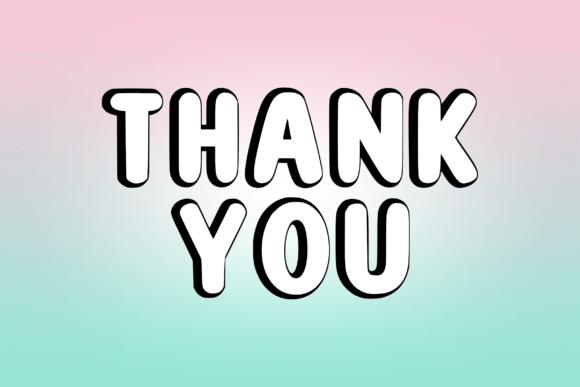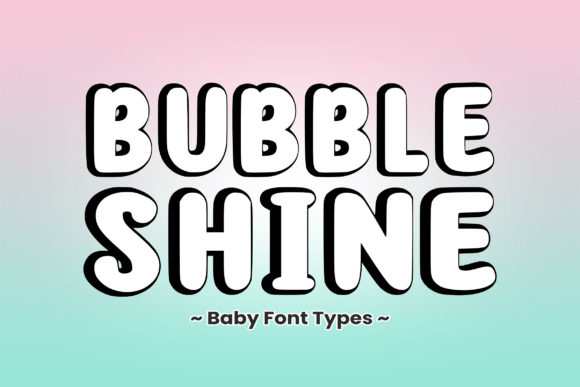
Unveiling Bubble Shine Font: The Sweetest Addition to Your Design Arsenal
In the world of typography, fonts play a crucial role in conveying the tone and personality of a design. For designers and crafters looking to add a touch of whimsy and charm to their creations, the Bubble Shine Font is an excellent choice. This contemporary bubble font is designed to make a statement with its sweet and effortlessly identifiable aesthetic, making it perfect for a wide range of applications.
The Charm of Bubble Shine Font
Bubble Shine Font is a delightful and charming typeface that exudes sweetness in every character. Its unique design makes it stand out from other fonts, rendering it effortlessly identifiable and versatile. Whether you’re working on sublimation designs for t-shirts, mugs, tote bags, or any other item, this font is sure to add a touch of magic to your creations.
Perfect for Sublimation Designs
Sublimation designs have become increasingly popular, and for good reason. They offer a unique way to create personalized and customized items that make perfect gifts or promotional materials. Bubble Shine Font is an ideal choice for sublimation designs, as its delightful aesthetics add an extra layer of appeal to any item. Imagine a t-shirt with a bright and colorful design, featuring a quote or phrase in Bubble Shine Font – it’s sure to turn heads!
Beyond Sublimation: Adding Fun to Animations and Comic Titles
Bubble Shine Font is more than just a font – it’s a design element that can add fun and personality to a wide range of applications. Its playful and whimsical design makes it perfect for animations, comic titles, and even children’s books. Imagine a comic book with bold and colorful titles, featuring Bubble Shine Font – it’s sure to grab the reader’s attention and draw them in!
Key Features of Bubble Shine Font
- Contemporary Design: Bubble Shine Font features a modern and sleek design that’s perfect for a wide range of applications.
- Sweet and Whimsical: Each character exudes sweetness and whimsy, making it perfect for designs that require a touch of personality.
- Effortlessly Identifiable: The font’s unique design makes it easily recognizable, even at small sizes.
- Versatile: Bubble Shine Font can be used for a wide range of applications, from sublimation designs to animations and comic titles.
Tips for Using Bubble Shine Font
To get the most out of Bubble Shine Font, here are a few tips to keep in mind:
- Use it for Headings and Titles: Bubble Shine Font is perfect for headings and titles, as its bold and playful design grabs the reader’s attention.
- Experiment with Colors: The font’s sweet and whimsical design pairs well with bright and bold colors, so don’t be afraid to experiment.
- Pair it with Other Fonts: Bubble Shine Font can be paired with other fonts to create a unique and visually appealing design.
In conclusion, Bubble Shine Font is a charming and contemporary bubble font that’s perfect for designers and crafters looking to add a touch of whimsy and charm to their creations. Its sweet and effortlessly identifiable aesthetic makes it perfect for sublimation designs, animations, comic titles, and more. With its versatility and playful design, Bubble Shine Font is sure to become a staple in any designer’s arsenal.